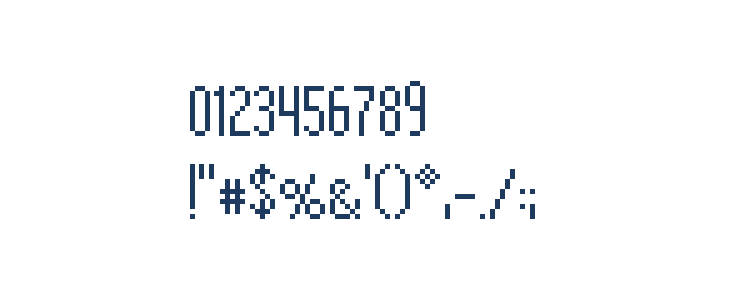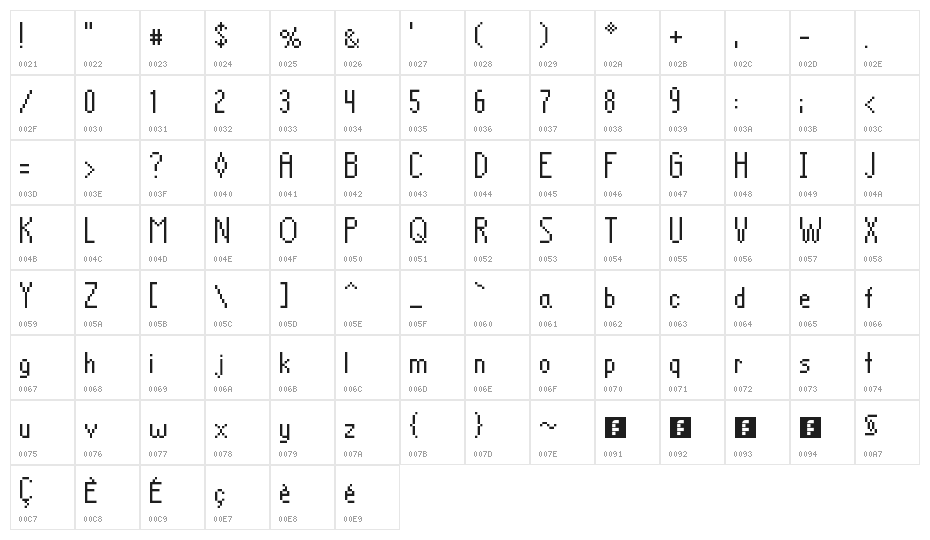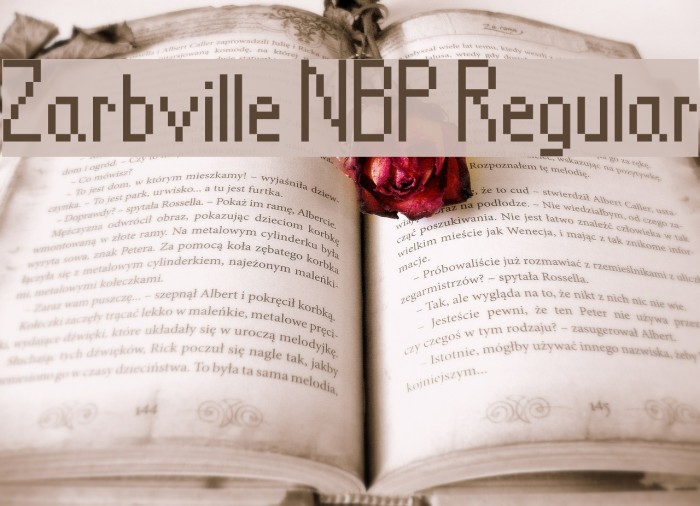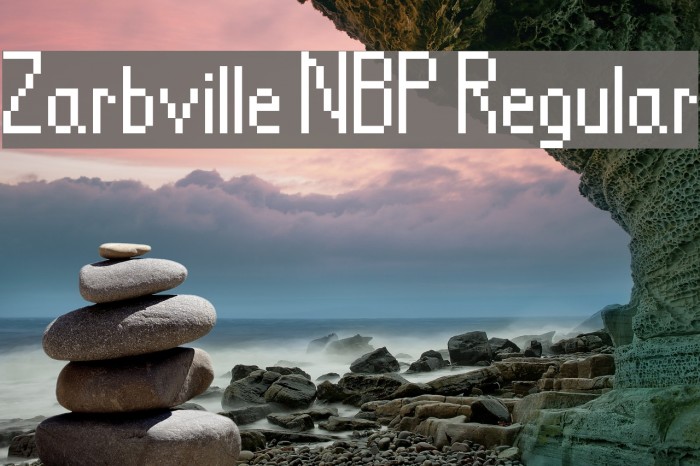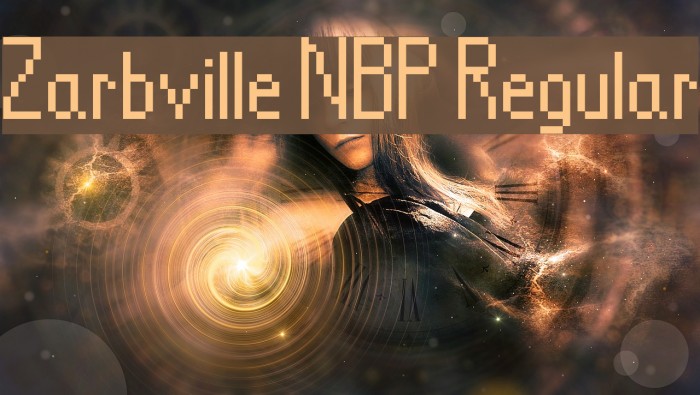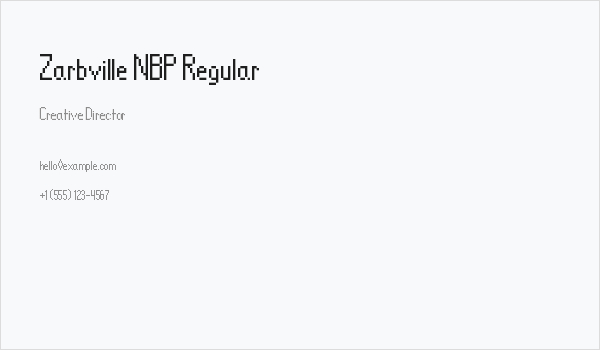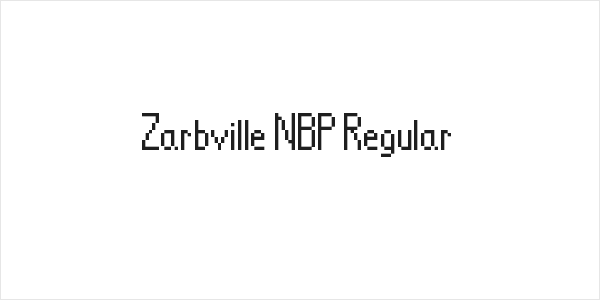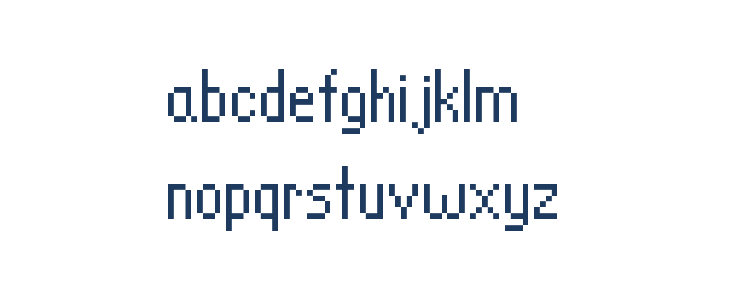
Zarbville NBP Regular Font
Zarbville NBP Regular Description
This font features a pixelated, grid-like design reminiscent of early digital displays and retro video games. Each character is constructed with a uniform grid of squares, giving it a distinctly digital and geometric appearance. The uppercase and lowercase letters maintain a consistent height and width, contributing to a monospaced feel. Numbers and special characters follow the same design principles, ensuring uniformity across all glyphs. The font's style is clean and minimalistic, making it suitable for projects that require a digital or retro aesthetic. Its simplicity and clarity make it highly legible, even at smaller sizes.
| Overall Style | Retro, Digital |
| Use Case | Logos, Headlines, Digital displays |
| Proposed Projects | Ideal for retro video game design, digital art projects, tech-themed posters, and any creative work that requires a nostalgic digital feel. |